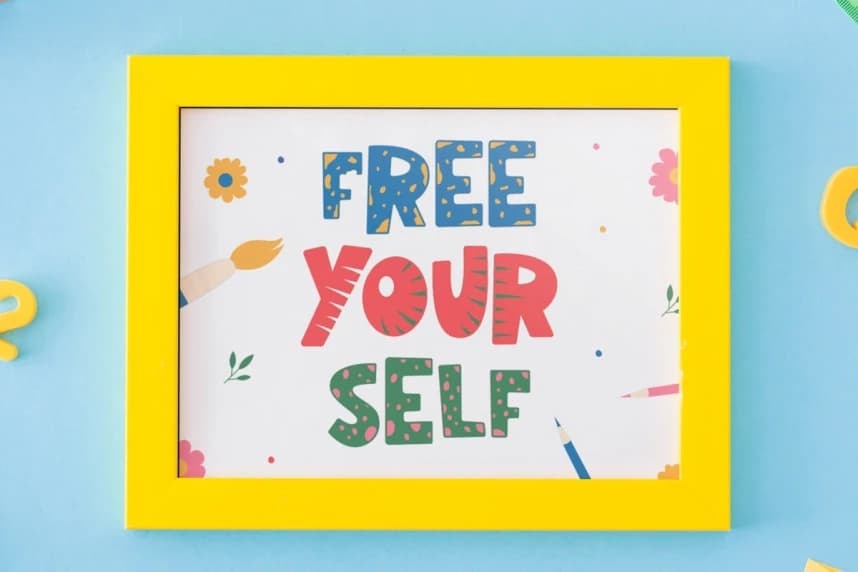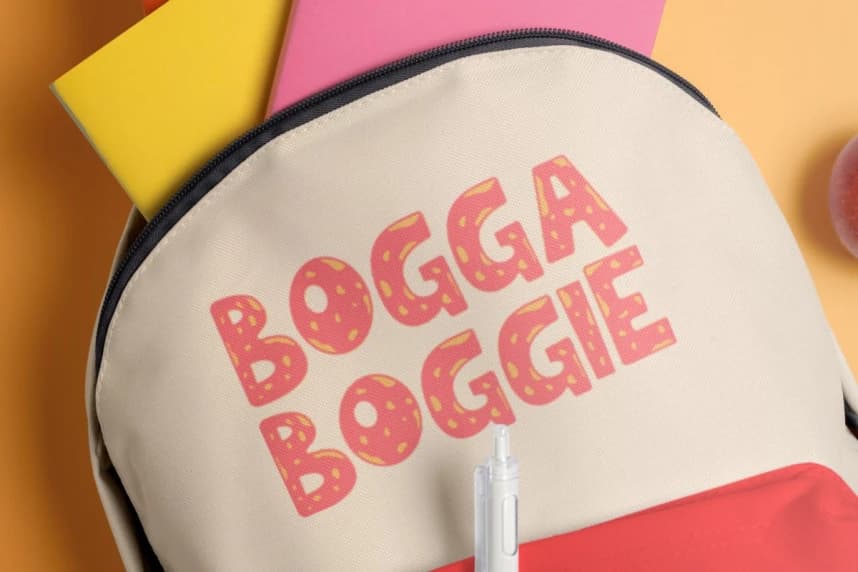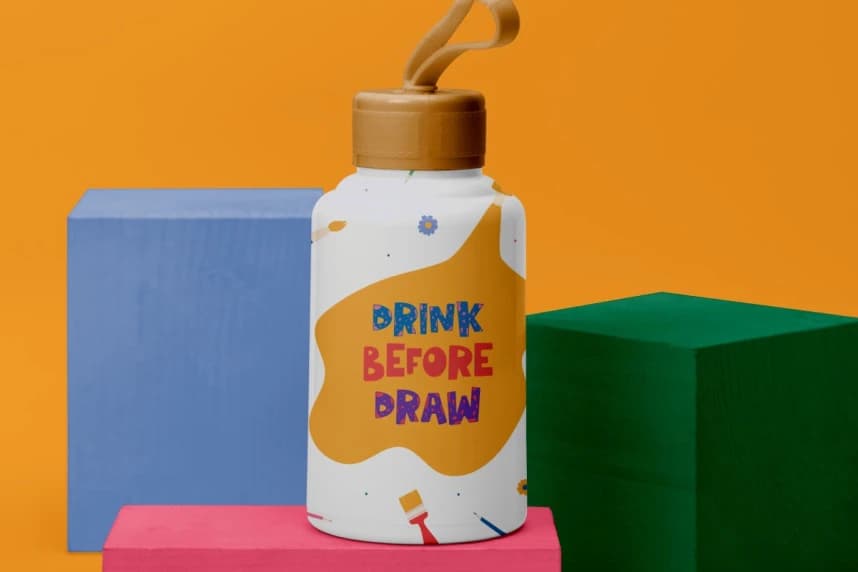
Carve Craft Font
Carve Craft Font, a typeface that embodies the spirit of handmade artistry. This font is not just a set of characters; it’s a toolbox for imagination, designed to bring your projects to life with its display of fun and playful letterforms.
Carve Craft